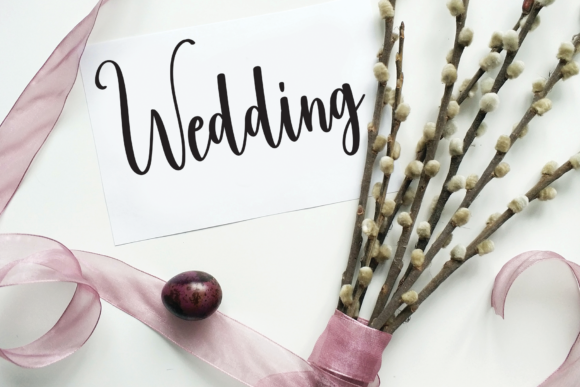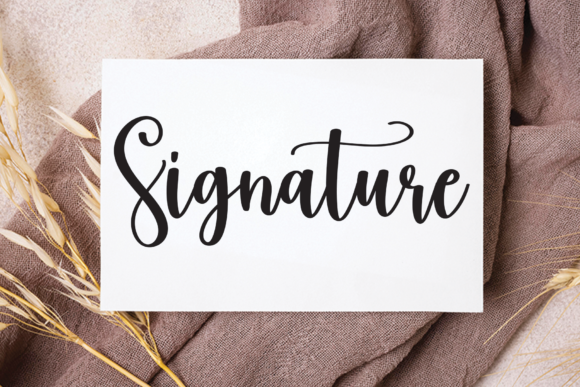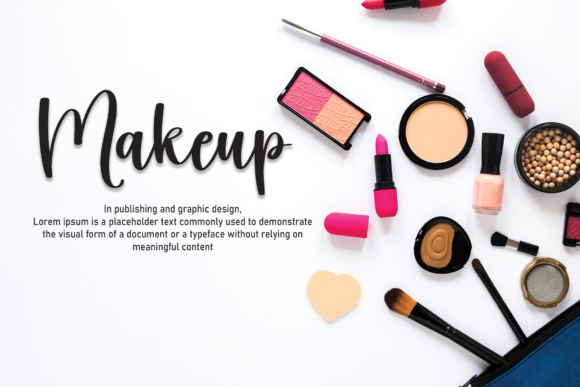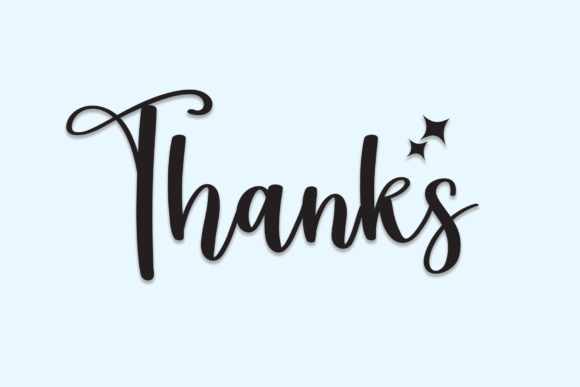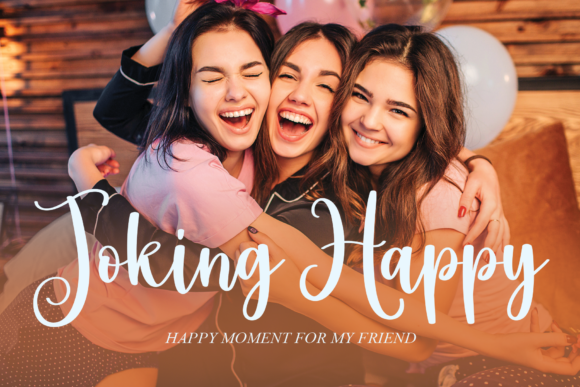
The Winter Font
About The Winter Font
The winter is a splendid handwritten font that will give you an extraordinary experience every time you use it! It is suitable for wall displays, wedding invitations, social media post logos, advertisements, product packaging, product designs, labels, photography, watermarks, invitations, stationery, or more!